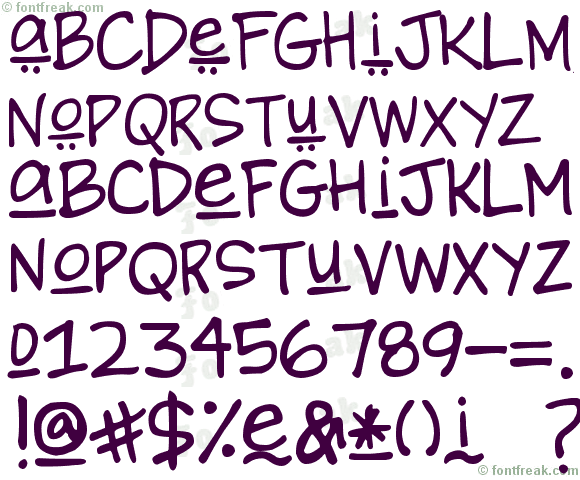
DJB BREWHAUS SPECIAL, designed by Darcy Baldwin, is a captivating display typeface that exudes a unique charm suitable for various creative projects. This font falls into the decorative category, characterized by its playful, hand-drawn aesthetic that gives it a casual yet engaging feel. The strokes are varied and slightly irregular, adding an organic touch, while the spacing between letters is intentionally relaxed, enhancing readability and visual appeal.
The font features a medium stroke weight with low contrast, making it versatile enough for both headlines and body text. Decorative elements such as whimsical curls and playful swashes give DJB BREWHAUS SPECIAL its distinctive personality. Its informal style makes it an excellent choice for creative applications where a sense of fun and approachability is desired.
Ideal use cases for this font include wedding invitations where a personal touch is appreciated, movie posters that aim to attract attention, restaurant menus that convey a relaxed dining atmosphere, and event flyers that need to stand out. This font is particularly appealing to graphic designers, small business owners, and content creators who seek to infuse their projects with a unique flair.
The DJB BREWHAUS SPECIAL font free download offers an exciting opportunity to elevate your design projects with its charming and quirky style. What sets this font apart is its ability to convey a sense of whimsy while remaining highly functional. Perfect for casual and creative contexts, it invites viewers in and encourages engagement, making it a delightful addition to any designer's toolkit. Whether you’re crafting promotional materials or personal invitations, this font will undoubtedly leave a lasting impression.